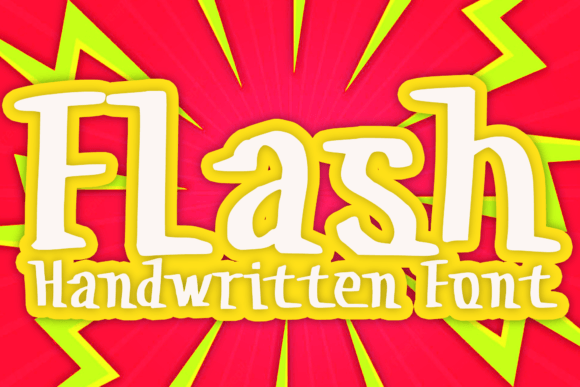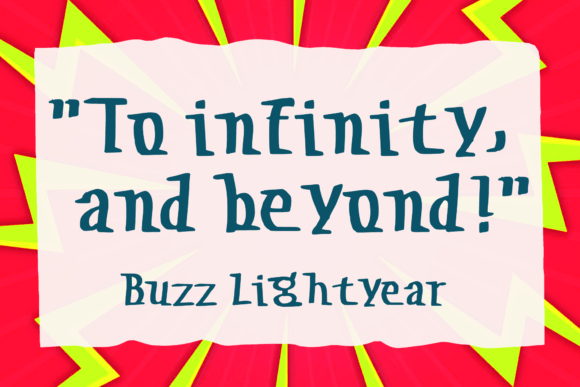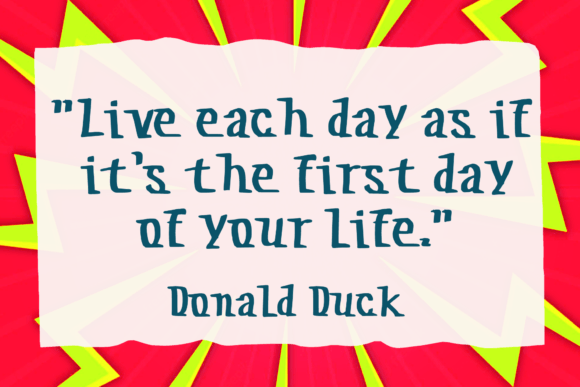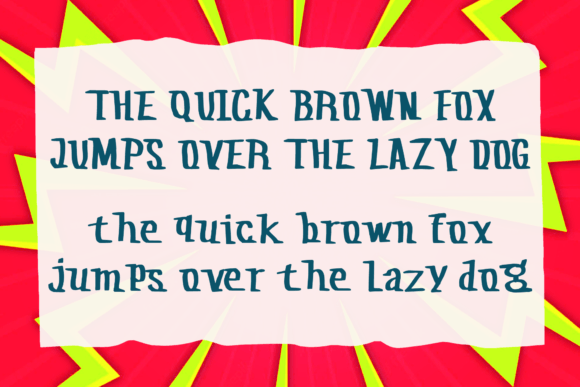
Flash Font
About Flash Font
The Flash Font Download is a speed-themed handwritten typeface designed to add energy and charm to any project. With its lively strokes and quirky personality, this font instantly captures attention. It combines a playful handwritten style with a unique sense of movement, making it ideal for designs that need both creativity and flair.
Whether you’re creating graphics for kids’ projects, customizing apparel, or designing digital layouts, Flash delivers a whimsical yet professional touch. Its balance of fun and readability ensures that your message stands out clearly without losing its playful spirit.
Features of Flash Font
When you choose the Flash Font Download, you’re getting a typeface that is versatile and user-friendly. Key features include:
• Speed-inspired handwritten style that conveys energy and motion
• Quirky and whimsical design suitable for playful projects
• Strong readability in both small and large sizes
• Flexible usage across print and digital formats
• Timeless style that adapts to a wide range of creative needs
Best Uses for Flash Font
The Flash Font Download can enhance many types of projects. Some of the most popular applications include:
• T-Shirts & Apparel – Add a bold and fun handwritten statement
• Children’s Books – Perfect for titles, covers, and illustrations
• Greeting Cards & Stickers – Infuse joy into personal messages
• Posters & Flyers – Draw attention with playful typography
• Digital Graphics & Presentations – Keep designs lighthearted yet professional
• Branding & Logos – Give products a quirky, approachable identity
Why Choose Flash Font?
Designers often search for fonts that are both distinctive and practical. The Flash Font Download meets both needs effortlessly. Its whimsical handwritten style adds personality, while its clean execution ensures legibility. Unlike overly stylized fonts that can become distracting, Flash offers a balance of uniqueness and clarity.
This makes it a fantastic choice for creators who want to communicate warmth, speed, and playfulness all in one design. Whether you’re a small business owner, a graphic designer, or a hobbyist, Flash adapts easily to your creative vision.
The Flash Font Download is more than a quirky handwritten typeface—it’s a versatile design companion. With its speed-themed strokes and playful personality, it is perfect for t-shirts, posters, greeting cards, stickers, and children’s projects. Its adaptability ensures it remains a favorite for both personal and professional use.